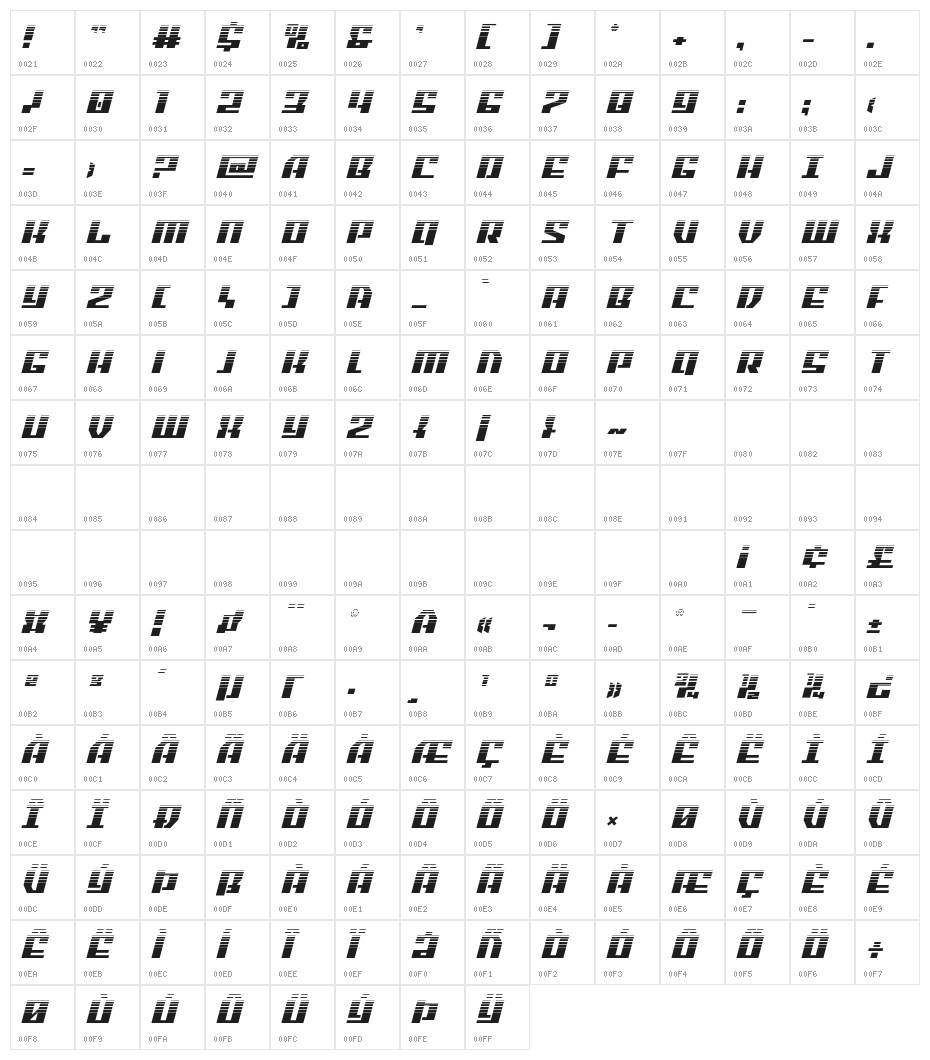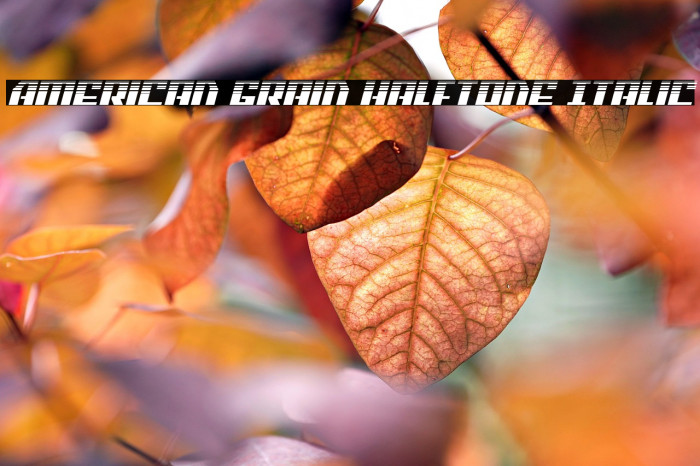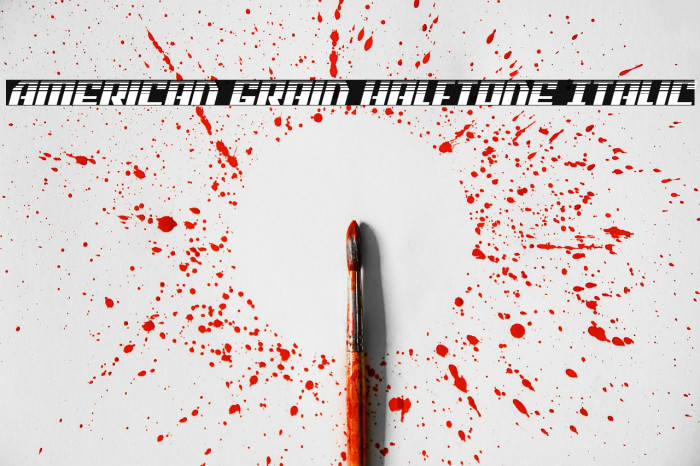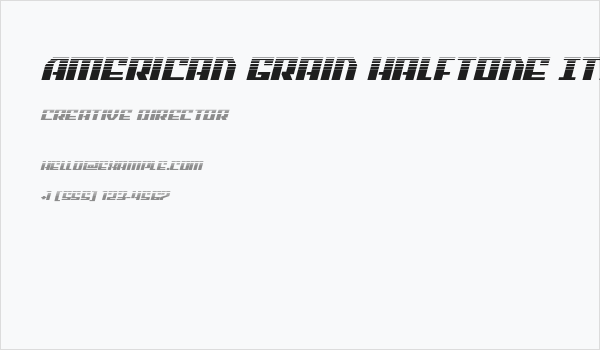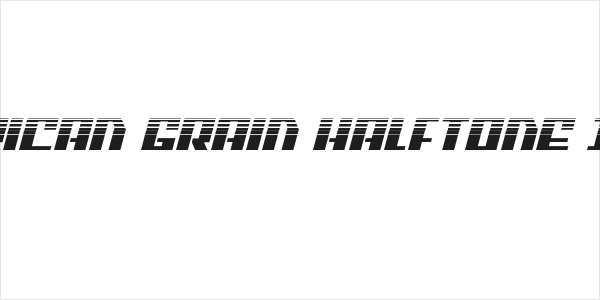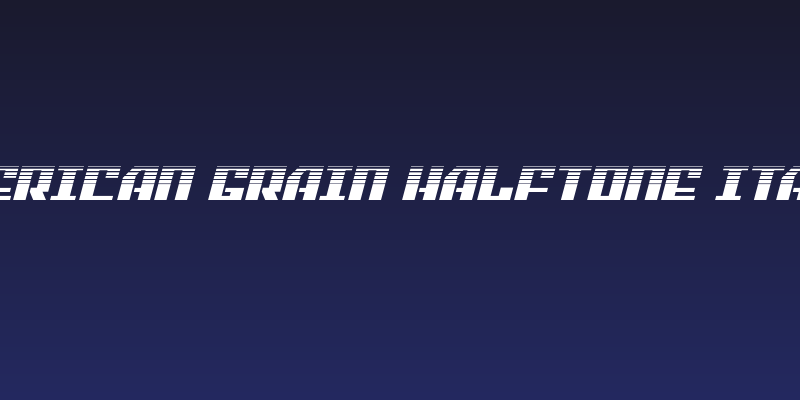
American Grain Halftone Italic Font
American Grain Halftone Italic Description
This font features a bold, italicized style with a unique halftone pattern that gives it a dynamic and modern appearance. The characters are constructed with horizontal lines that create a sense of movement and energy. The uppercase and lowercase letters maintain a consistent width, while the numbers and special characters follow the same design principles. The overall look is striking and futuristic, making it ideal for projects that require a strong visual impact.